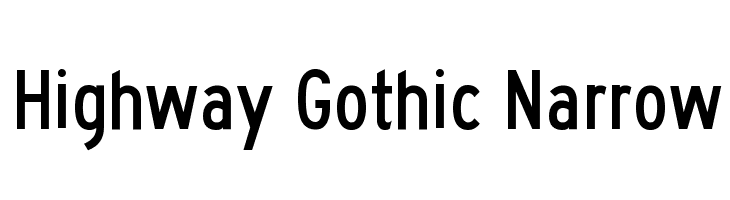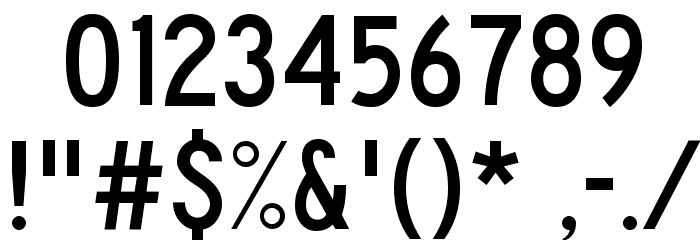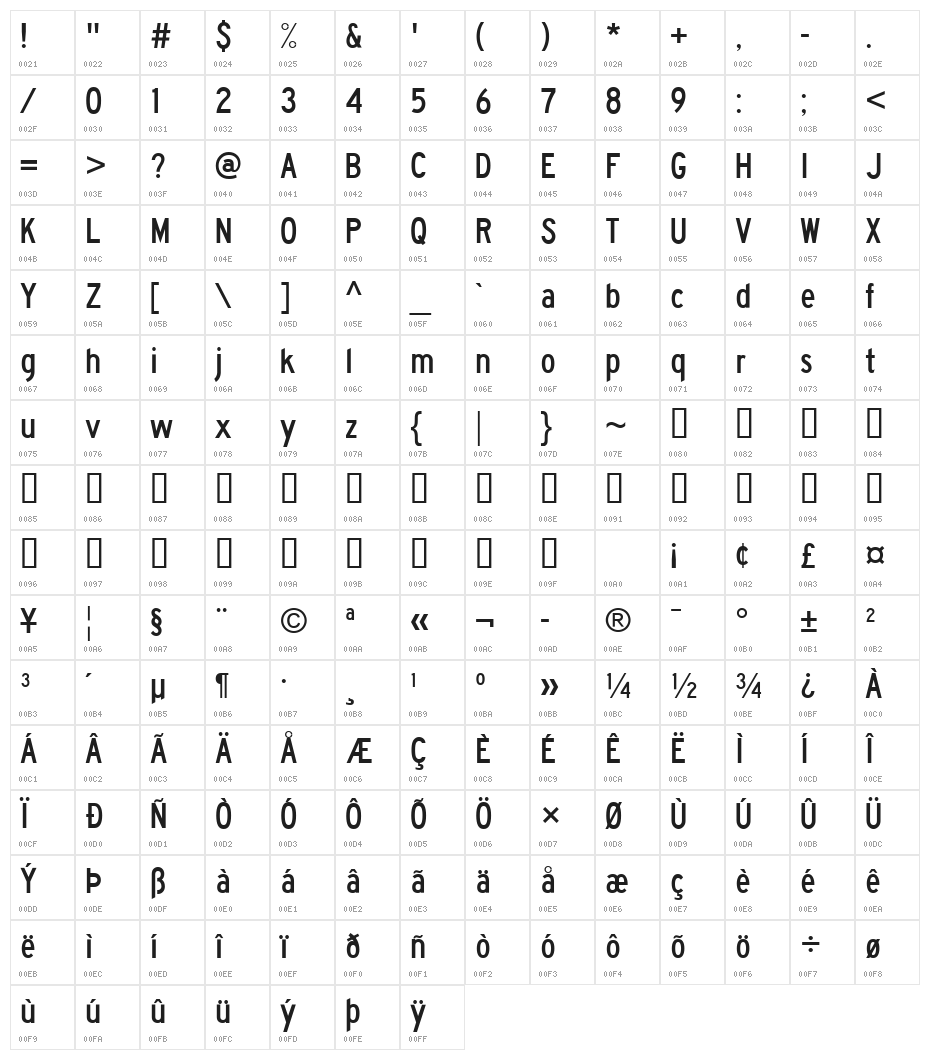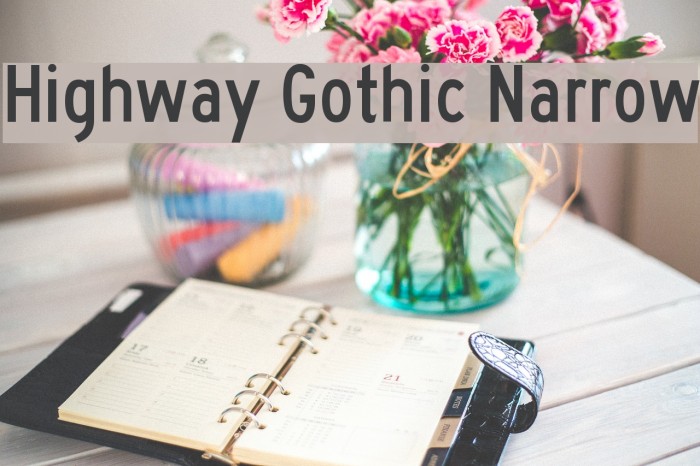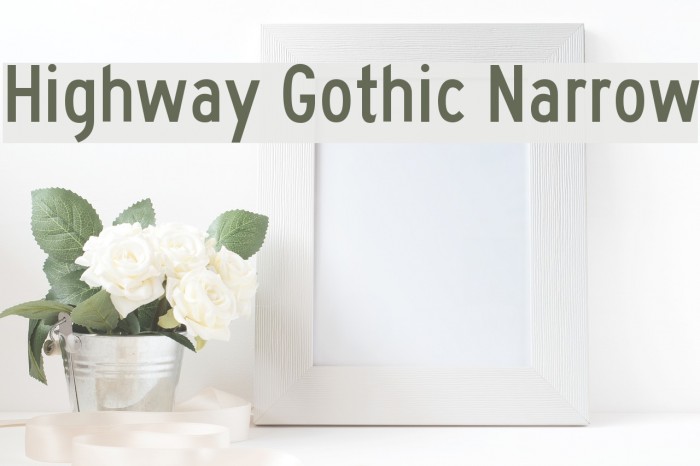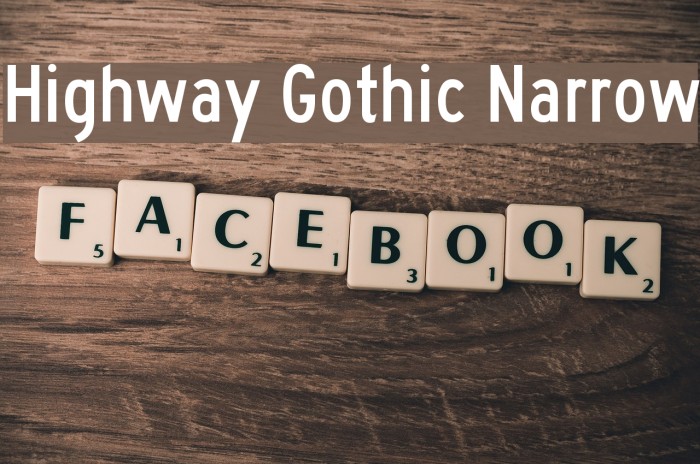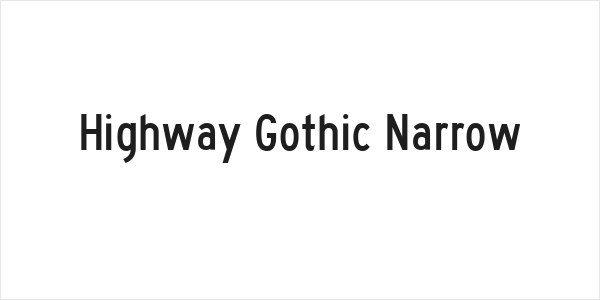
Highway Gothic Narrow Font
Highway Gothic Narrow Description
This font features a clean and straightforward design, characterized by its narrow and tall letterforms. It is highly legible, making it ideal for signage and wayfinding. The strokes are consistent in width, contributing to a uniform appearance. The sans-serif style ensures clarity and simplicity, while the narrow width allows for efficient use of space. The characters are well-spaced, enhancing readability even at a distance. This font is versatile, suitable for both digital and print media, and maintains a professional and modern aesthetic.
| Use Case | Signage, Wayfinding, Informational Displays |
| Proposed Projects | Perfect for highway signs, informational displays, and any project requiring clear and concise text presentation. |